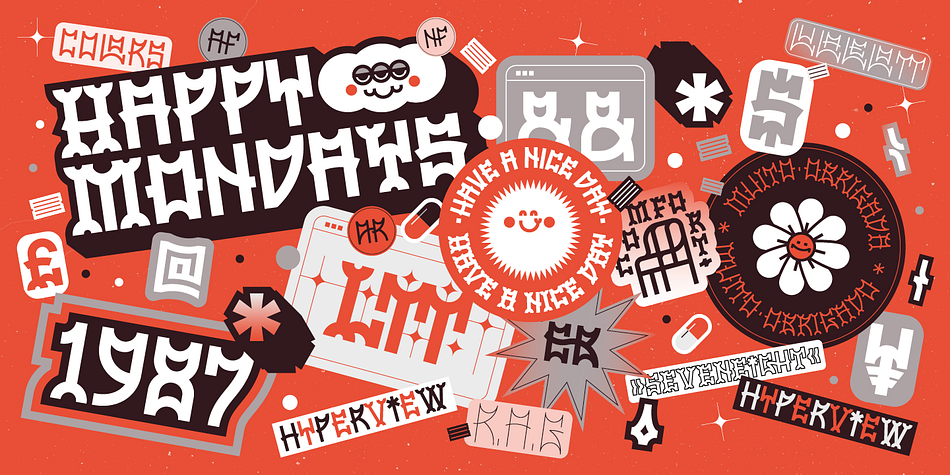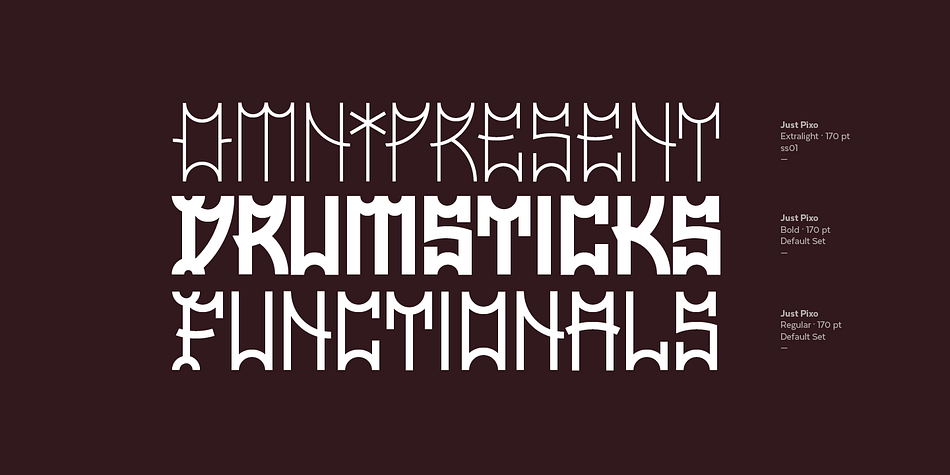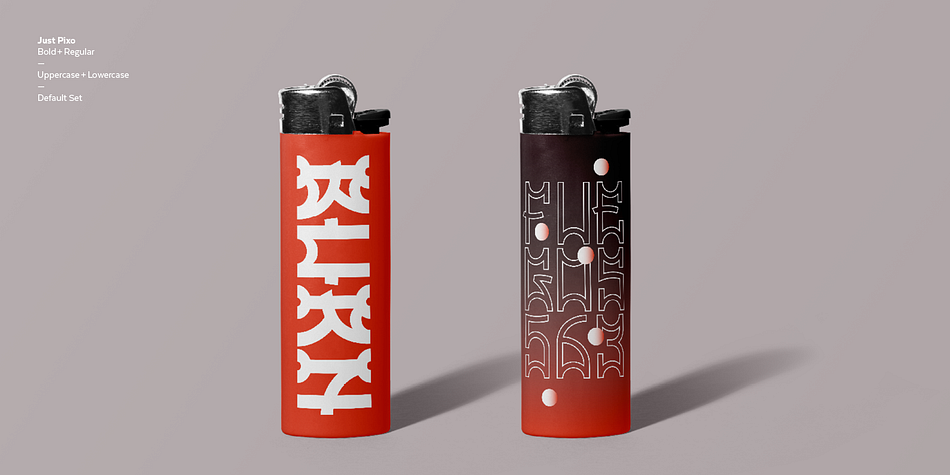
Just Pixo
Designed by Monica Rizzolli and Tony de Marco, Just Pixo is a display font family. This typeface has eight styles and was published by Latinotype.
Inspired by the streets of Brazil, Just Pixo is a display typeface that mimics pixação, Brazilian graffiti. In his book Pixação: São Paulo Signature, François Chastanet says, “This alphabet, with its vertical inscriptions axis, is to be directly classified in the king-size, monumental category; the systematic use of capitals, meticulously aligned and justified, their extreme verticality, are symptomatic of this architectural dimension”.
As such, we designed Just Pixo for monumental type sizes and vertical alignments—a family with seven weights, alternate glyphs, multiple ligatures and is provided as a Variable Font too. Unique decorative serif capitals and lowercase sans serif versions make Just Pixo the perfect option for large displays, strong headlines, urban logos, and contemporary concepts. Despite its controversial use on the streets, this often politically charged style will typeface will take your next project to the next level.